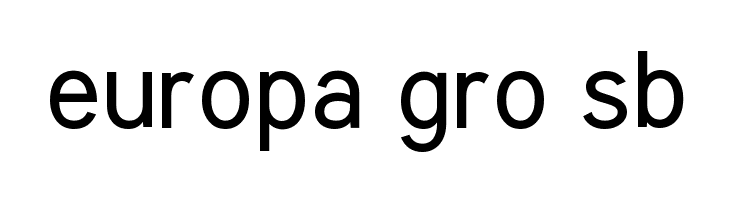
Patriotic American-themed dingbat illustrations.
A bold serif font with strong, well-defined characters and a slightly condensed structure.
A bold, geometric font with a modern, condensed style.
A modern sans-serif font with clean lines and excellent readability.
A classic serif typeface with modern elegance and readability.
A classic serif font with bold strokes and pronounced serifs.
A modern, narrow sans-serif font with clean, consistent strokes.
A modern sans-serif font with semi-bold weight and italic style.
A bold, modern font with elegant strokes and strong character presence.
A modern, elegant font with a clean and professional appearance.